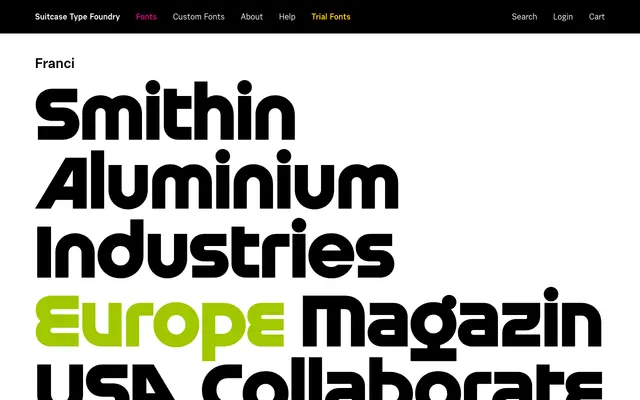
A serif typeface from Suitcase Type Foundry, related to the Ladislav family and rooted in Czech typographic tradition.
Franci is a serif from the Prague-based Suitcase Type Foundry, listed alongside the Ladislav family of 13 fonts. The page content is sparse, but its placement within the foundry's broader catalogue suggests a text-oriented design with Central European sensibility. Further detail on weights, italics and language support is unavailable from the scraped content.
The name Franci and its association with the Ladislav family on Suitcase Type Foundry suggests a serif typeface in the Czech typographic tradition; classified as transitional serif pending further detail from the page.